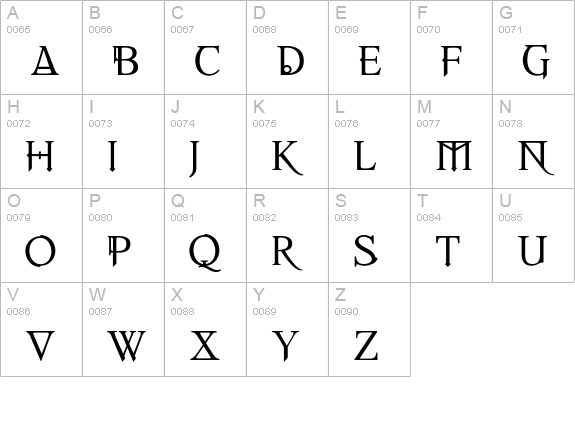
REQUIEM-DIESIRAE10 Font Details
REQUIEM-DIESIRAE10 font is a stunning display typeface that exudes elegance and sophistication. Its intricate letterforms are reminiscent of Gothic calligraphy, with a modern twist. This font is the perfect choice for projects that require a touch of drama and a hint of mystique. What sets REQUIEM-DIESIRAE10 font apart is not only its captivating design but also its accessibility. This font is freely available to download at FontsMarket.com, making it a valuable resource for designers, artists, and creatives alike. Whether you're working on a logo, a poster, or a branding project, REQUIEM-DIESIRAE10 font will effortlessly elevate your work to new heights. The delicately crafted curves and sharp angles of each letter make REQUIEM-DIESIRAE10 font a truly mesmerizing sight. Its versatility allows it to adapt to various design contexts, from elegant invitations and event signage to editorial layouts and book covers. The attention to detail in this font ensures that every character is thoughtfully designed, resulting in a cohesive and visually striking composition. With its timeless appeal and artistic flair, REQUIEM-DIESIRAE10 font is a must-have for any designer's toolkit. Its unique combination of classic charm and contemporary design elements makes it suitable for a wide range of creative projects. Whether you're aiming for a vintage-inspired aesthetic or a modern and edgy look, this font will effortlessly cater to your design needs. Download REQUIEM-DIESIRAE10 font for free at FontsMarket.com and unleash your creativity. With its seamless legibility and captivating presence, this font is sure to make a lasting impression on your audience. Don't miss out on the opportunity to add this versatile and visually stunning typeface to your collection. Upgrade your designs with the beauty and elegance of REQUIEM-DIESIRAE10 font.